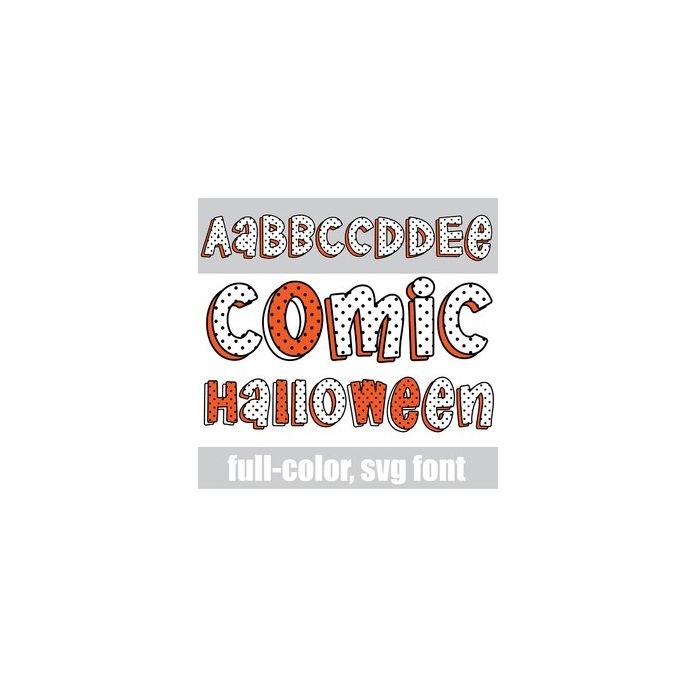
This full-color font features comic-style lettering in polka dot with big, bulky shadows in a Halloween color palette. There is a an alt version w/ secondary colors available through your system's or Silhouette's glyph map.